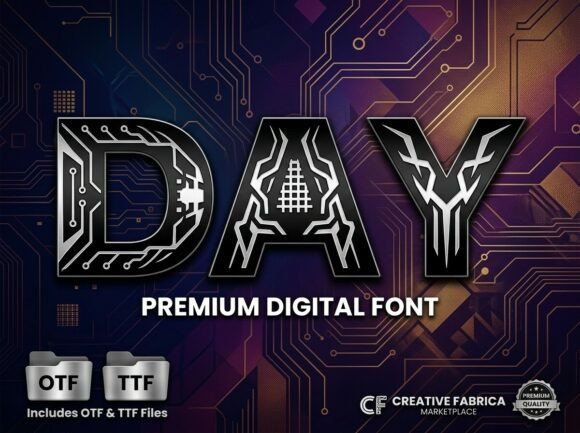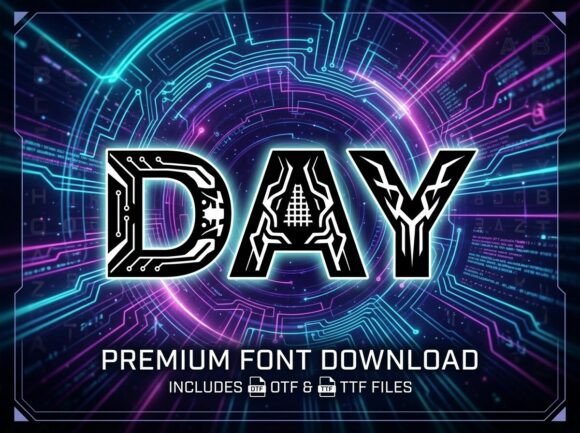
Introducing Day Font: A Legendary Crossover of Eras
Are you ready to step into a world where ancient meets modern, and technology blends with tribal vibes? Look no further than Day, a brilliant display typeface that’s taking the design world by storm. This stunning font is a masterful fusion of microchip circuitry traces, ancient Mesoamerican architectural lines, and tribal mask geometries, creating a unique and captivating visual identity that’s perfect for designers and crafters looking to make a statement.
The Inspiration Behind Day Font
Day Font is more than just a typeface – it’s a bridge between historical relics and modern cyberpunk aesthetics. The creators of Day drew inspiration from the intricate patterns and shapes found in ancient Mesoamerican architecture, tribal masks, and microchip circuitry. By combining these elements, they crafted a font that’s both futuristic and rooted in history. The result is a truly one-of-a-kind typeface that’s sure to turn heads.
Key Features of Day Font
So, what makes Day Font so special? Here are just a few of its key features:
- Sturdy, geometric letterforms: Day Font features robust, geometric shapes that give it a solid, dependable feel.
- Rhythmic fusion of patterns: Every stroke of the font is infused with a rhythmic fusion of microchip circuitry traces, ancient Mesoamerican architectural lines, and tribal mask geometries.
- Heavy structural weight: Day Font has a substantial, weighty feel that commands attention.
- Multi-dimensional personality: This font is full of depth and character, making it perfect for designers who want to add a little extra something to their work.
Day Font is an incredibly versatile typeface that can be used in a wide range of design projects. Here are just a few ideas to get you started:
- Independent sci-fi roleplaying games: Add a touch of futurism and adventure to your game with Day Font.
- Boutique artisanal spirits packaging: Give your spirits packaging a unique, eye-catching look with Day Font.
- Experimental electronic music festival branding: Create a bold, attention-grabbing brand identity for your music festival with Day Font.
- High-impact social media headers: Make a statement on social media with Day Font’s bold, futuristic aesthetic.
Why Designers and Crafters Love Day Font
So, why are designers and crafters raving about Day Font? Here are just a few reasons:
- Unique and distinctive: Day Font is a true original, allowing designers to stand out from the crowd.
- High-impact visuals: This font is designed to grab attention and make a statement.
- Perfect for experimental projects: Day Font is ideal for designers who want to push the boundaries of traditional design.
- Easy to use and customize: With its clean, intuitive design, Day Font is easy to use and customize for a wide range of projects.
In conclusion, Day Font is a legendary crossover of eras that’s taking the design world by storm. With its unique fusion of ancient and modern elements, sturdy geometric letterforms, and multi-dimensional personality, this font is perfect for designers and crafters looking to add a little extra something to their work. Whether you’re working on a sci-fi roleplaying game, boutique spirits packaging, or experimental electronic music festival branding, Day Font is the premier choice for making a statement. So why wait? Try Day Font today and experience the future of design!